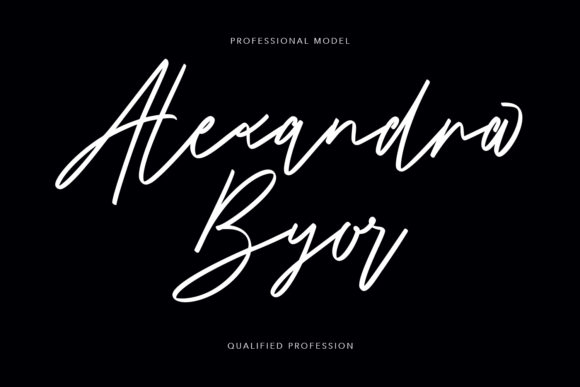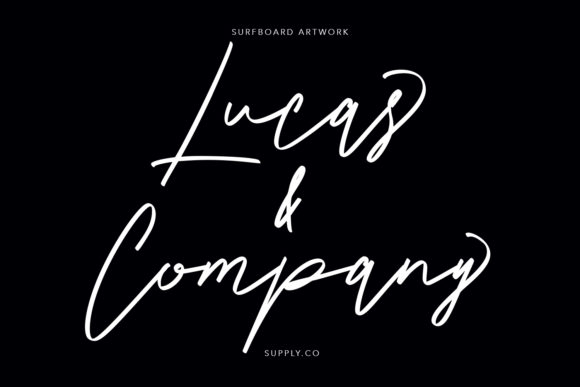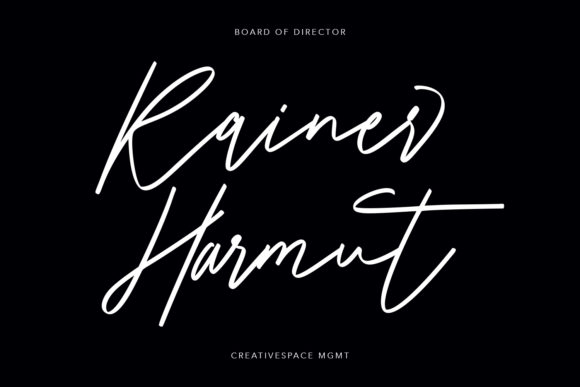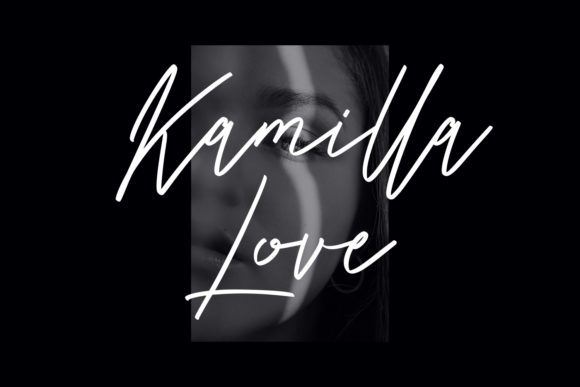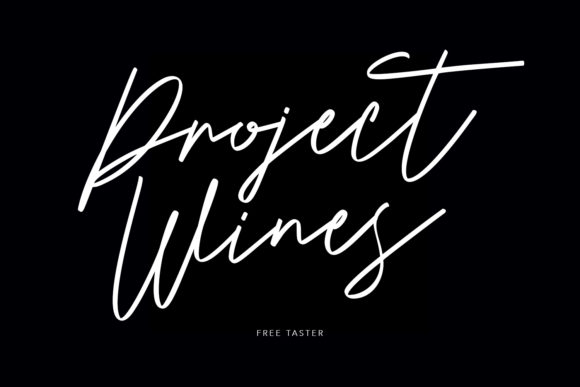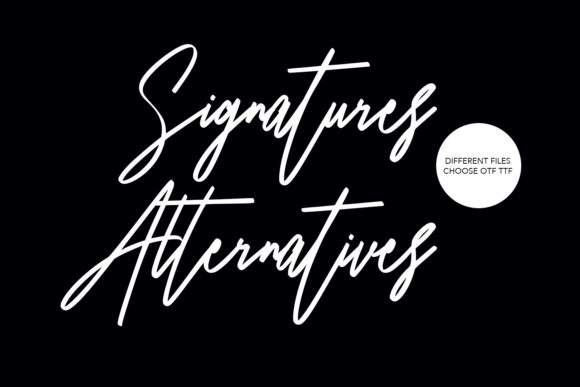
Discover the Perfect Handwritten Touch with Boutique Kamilla Font
There’s nothing quite like the thrill of creating something from scratch, is there? You’re brainstorming ideas for your latest design project, and suddenly, a spark of inspiration hits. You envision a beautiful, elegant logo that captures the essence of your brand. The perfect font can make all the difference, and that’s where Boutique Kamilla Font comes in.
This charming, handwritten font is a game-changer for designers looking to add a touch of sophistication to their creations. With its clean, thin lines and smooth vibe, Boutique Kamilla Font is the perfect choice for branding, product packaging, invitations, and more. Its versatility and unique character make it a valuable asset for any design project, and we can’t wait to explore its possibilities.
Boutique Kamilla Font Key Features
- Unique Characteristics: Boutique Kamilla Font features elegant, modern script lettering with a touch of sophistication and luxury
- Font Style: Script, Calligraphy, Display
Boutique Kamilla Font Review
Overall, I was pleasantly surprised by the Boutique Kamilla font. It’s a beautiful, elegant script font that’s perfect for adding a touch of sophistication to any design project. ✨
- Unique, hand-painted feel: The Boutique Kamilla font has a distinct, handmade quality that sets it apart from more generic script fonts.
- High-quality glyphs: The font’s letters and symbols are well-designed and look great at a variety of font sizes.
- Perfect for titles and headlines: The font’s elegant, flowing lines make it ideal for use in titles, headings, and other display text.
However, there are a few limitations to keep in mind: ⚠️
- May not be suitable for body text: While the font is perfect for titles and headlines, it may be difficult to read at smaller font sizes due to its script nature.
- Lack of language support: The font may not include support for certain languages or character sets, which could limit its use in certain design projects.
Overall, I would highly recommend the Boutique Kamilla font for designers looking to add a touch of elegance and sophistication to their work. While it may have some limitations, its unique qualities and high-quality glyphs make it a valuable addition to any design toolbox.
Use the Boutique Kamilla Font to add a touch of elegance and sophistication to your designs.
Pair it with bold and bright colors to create a striking contrast.
Experiment with different font sizes and styles to add visual interest.
The Boutique Kamilla Font is perfect for:
Branding and marketing materials
Food and lifestyle blogs